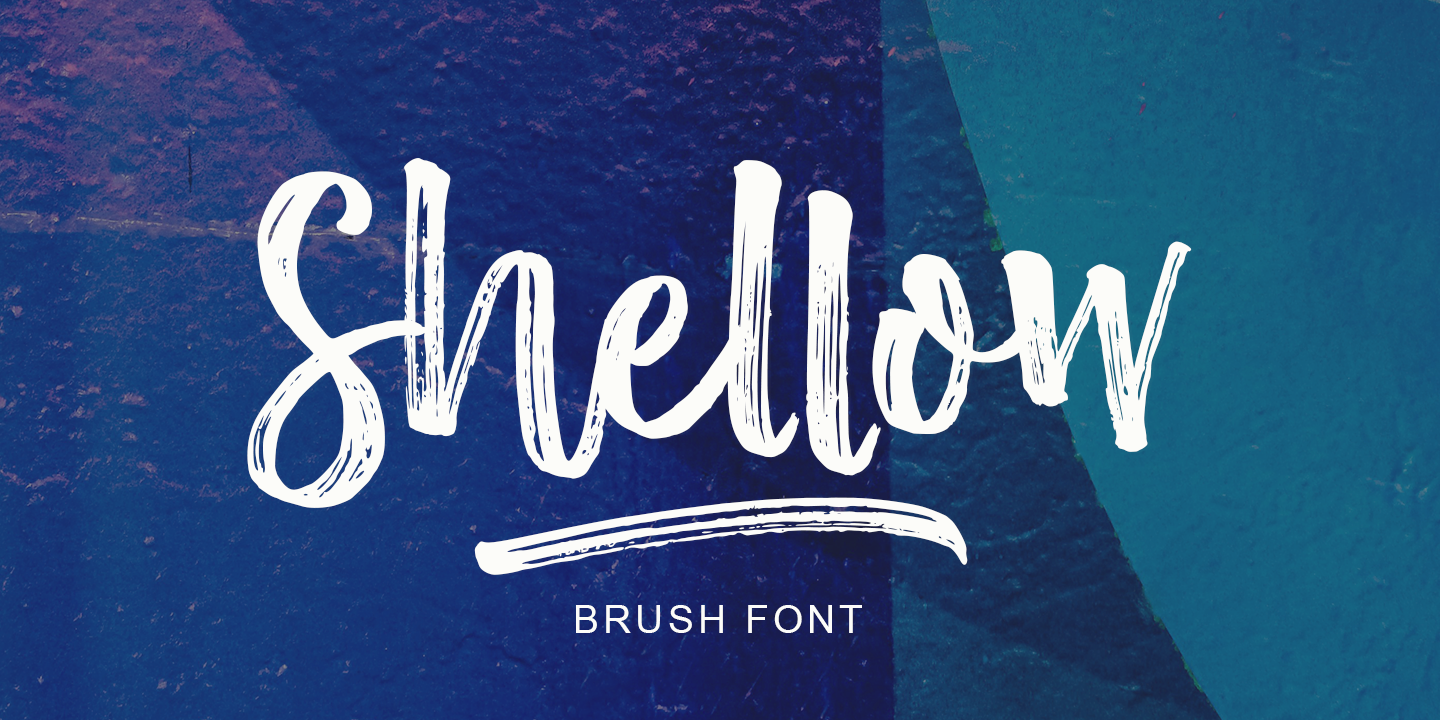
Discover the vibrant Shellow Brush Font Free Download, a super casual hand-brushed script typeface by Stripes Studio that exudes a quirky, textured charm. This font is perfect for creating a lively, hand-crafted aesthetic. However, please note that you must purchase this font for commercial use. For testing purposes, you can download it for free and explore its dynamic style.
The Shellow Brush Font is ideal for various applications, such as designing bold titles, crafting unique signatures, creating eye-catching posters, or adding a playful touch to logos, letterheads, and wedding invitations. Its versatility and detailed brush stroke texture make it a top choice for projects that demand a fun, organic look.
Why is the Shellow Brush Font Free Download so exciting? Its expressive, hand-drawn design with a quirky flair offers a fresh, energetic vibe, perfect for branding, signage, and creative projects. The font’s natural texture and flowing strokes ensure your designs stand out with a modern, artistic appeal.
The Shellow Brush Font family includes two styles: Regular and an alternate variant, providing flexibility for diverse design needs. These variations allow you to experiment with different effects, ideal for both print and digital media.